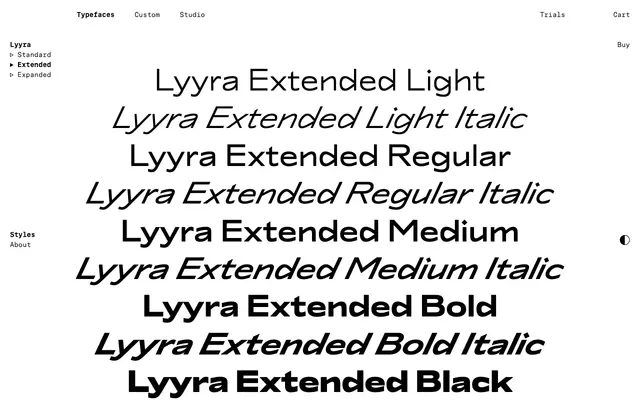
Lyyra Extended
Lyyra Extended specimen from Schick Toikka
The extended cut of Lyyra: a luxuriant five-weight expressive sans with italics, sitting between Standard and the more decadent Expanded.
Lyyra Extended sits one notch wider than Lyyra Standard and one notch narrower than Lyyra Expanded. The foundry describe the wider Lyyra styles as 'luxuriant' and free of patina, making the Extended cut a powerful display option that retains the family's high-waisted caps, petalled counters and vertically cut endings. Five weights from Light to Black with matching italics, plus full OpenType figures and rounded dot alternates, give it the range needed for editorial and identity work.
The middle wider cut in the Lyyra system; the foundry describe the wider Lyyra styles as 'luxuriant' and free of patina.